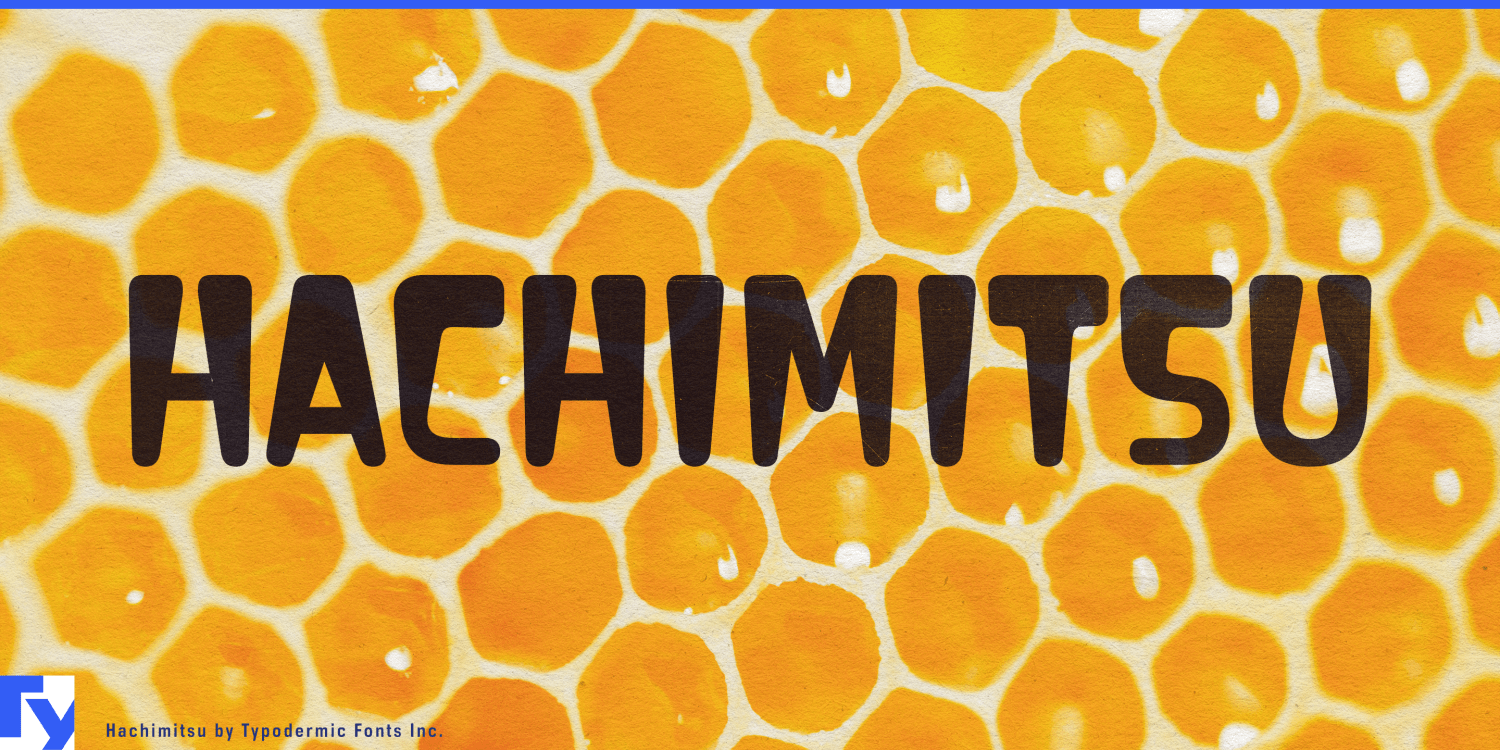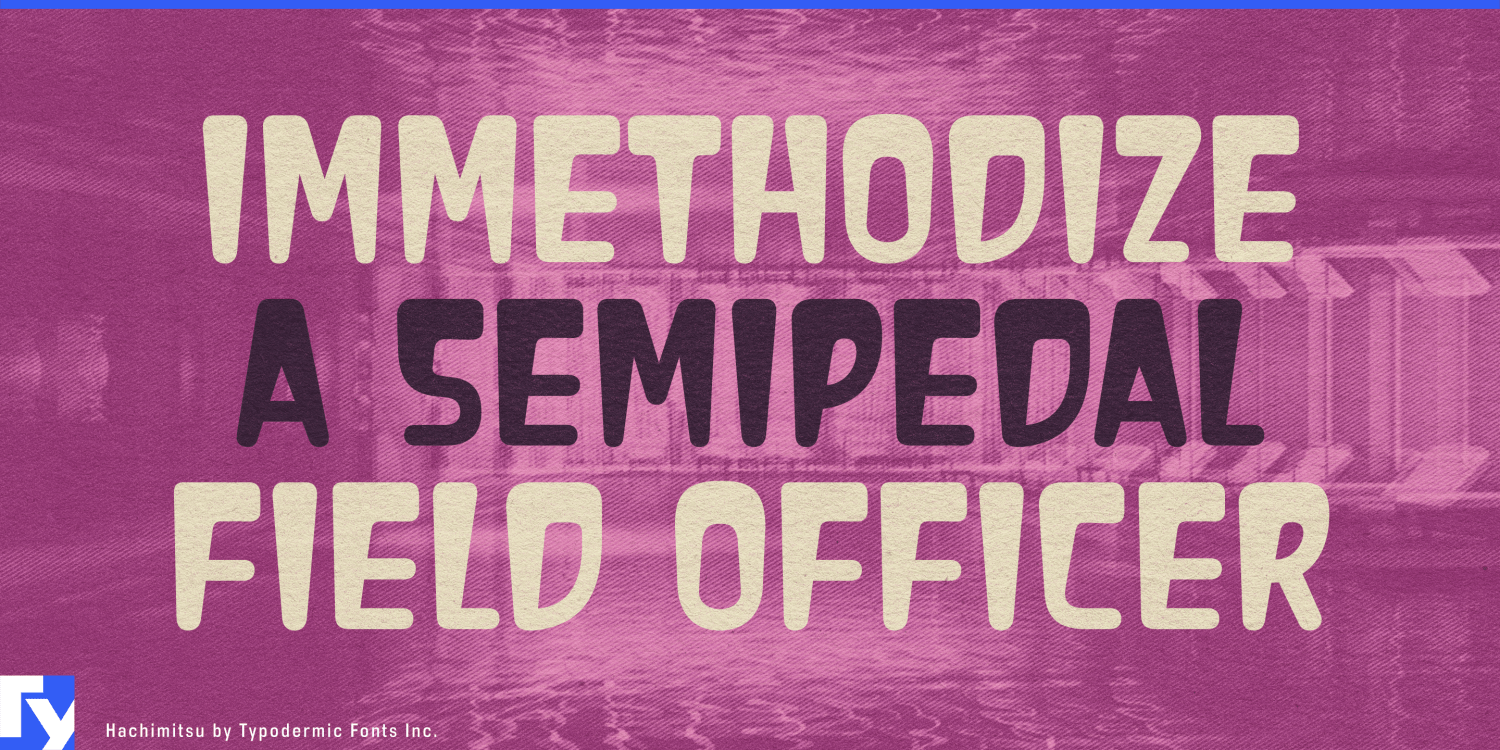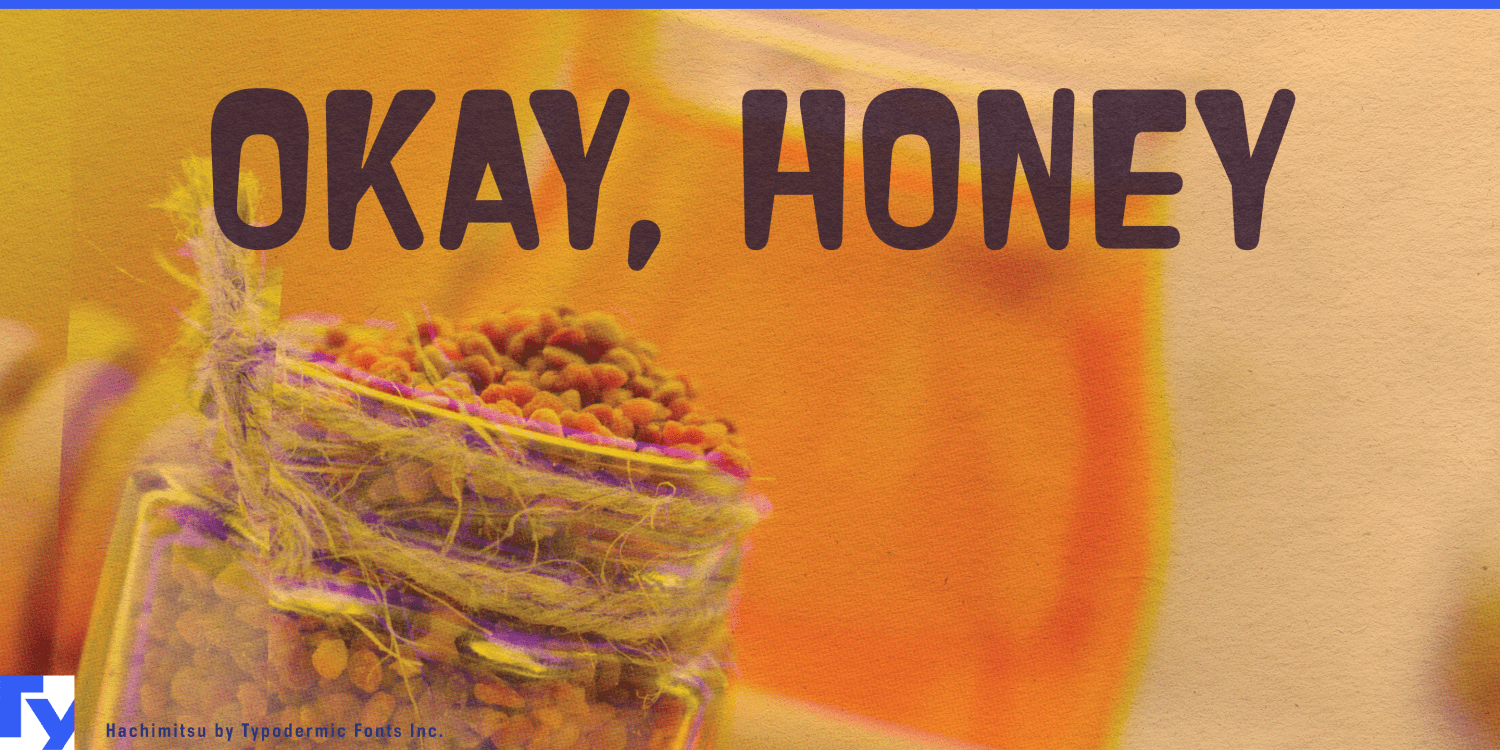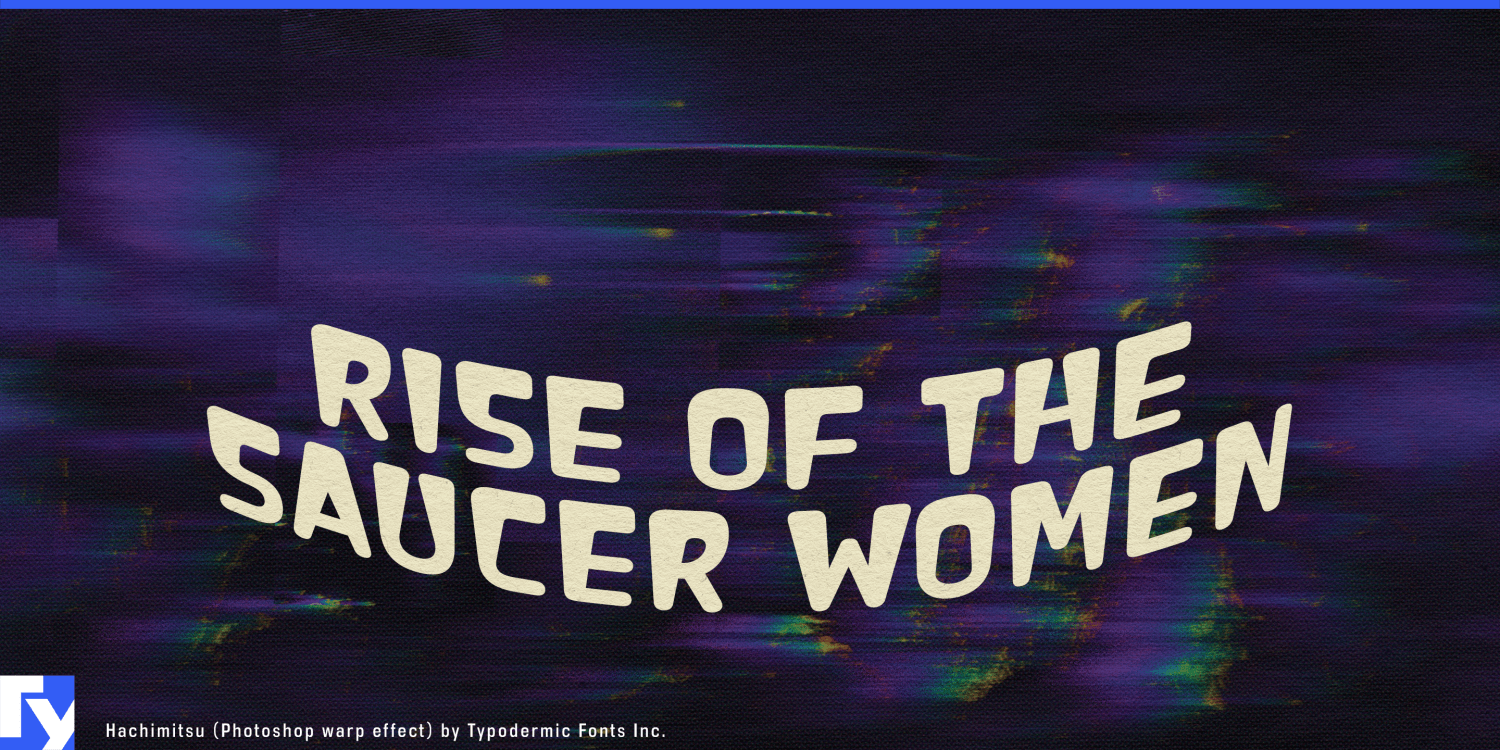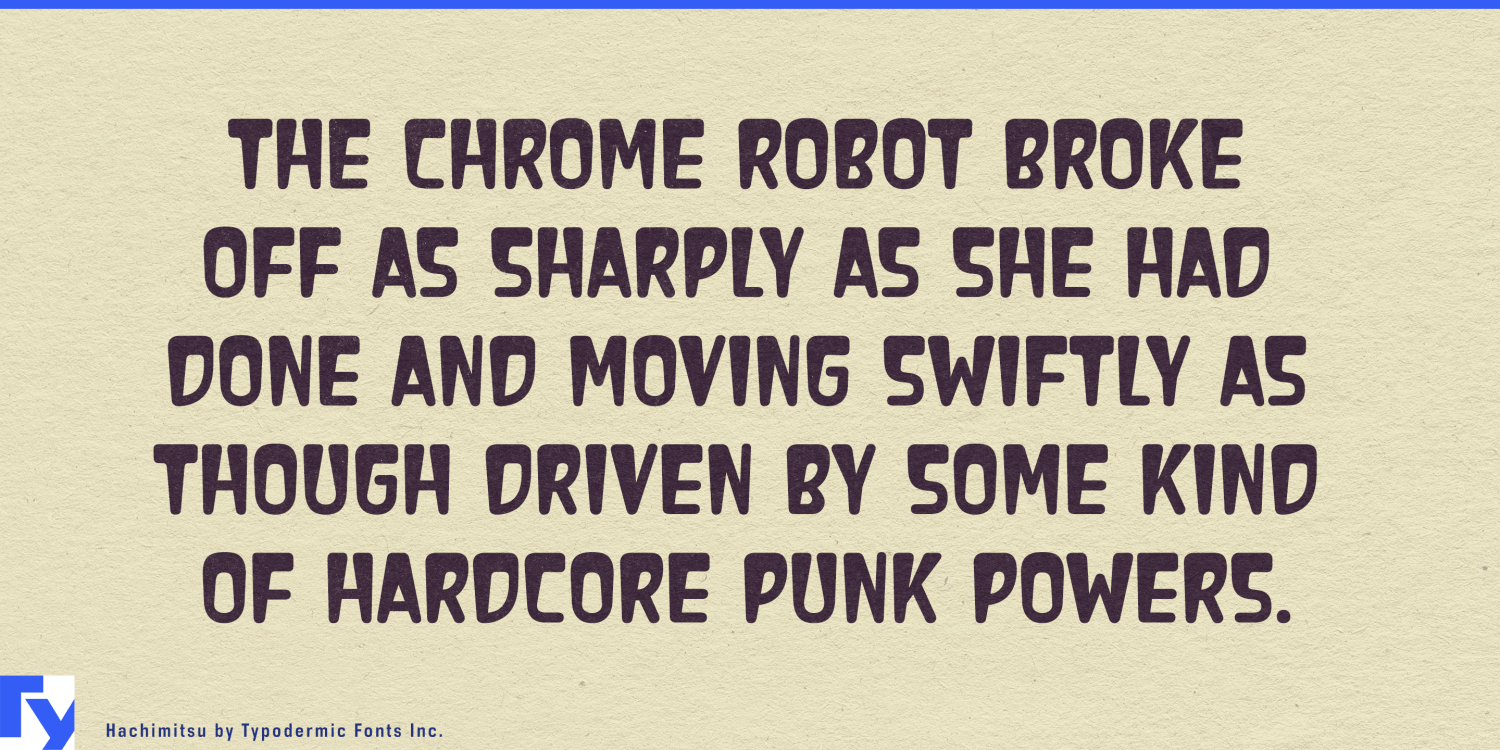
About Hachimitsu
In the vast cosmos of typography, a colossal entity has emerged from the primordial soup of design—Hachimitsu, a kaiju-inspired display font that towers over the landscape of conventional lettering. Born from the radioactive creativity of the Showa…